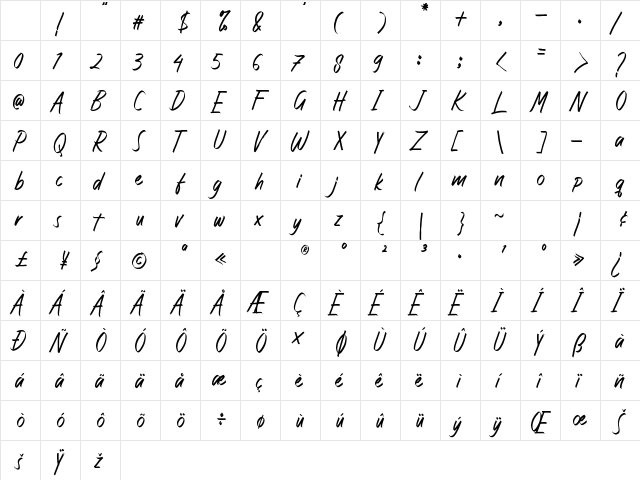
Complete Angika Jaya Regular glyph index. Displaying only characters natively supported by Angika Jaya Regular font.
Angika Jaya is a composed and adaptable typeface that performs quietly and consistently across a wide range of design contexts.